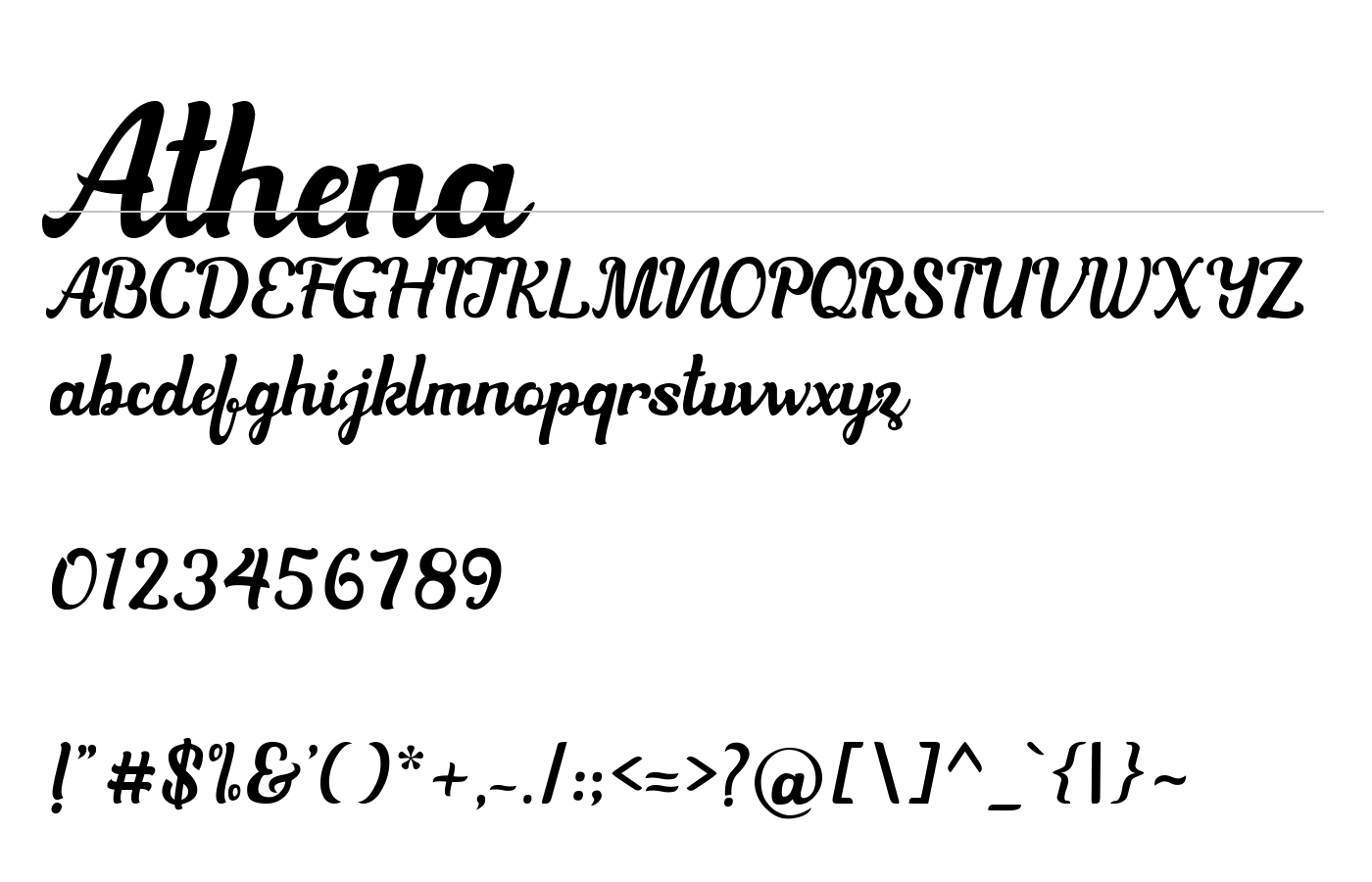
Athena is a stylish script font with a medium weight and smooth, flowing strokes that give it a classic yet approachable feel. Its slightly condensed letterforms and consistent stroke contrast make it ideal for elegant branding, headlines, and invitations where a touch of sophistication and personality is desired. This font works beautifully in fashion, beauty, and lifestyle projects that want to convey warmth and refinement.
Athena Font
About Athena Font